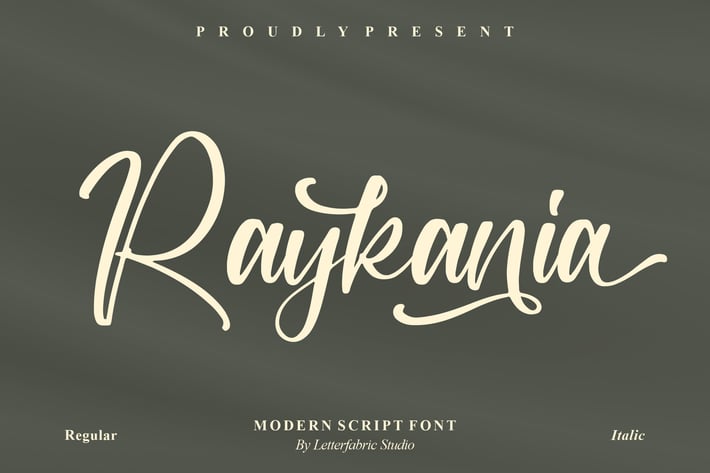
Raykania Modern Script Font
Raykania is a confident modern script that balances lively hand-written energy with poised, elegant curves. Each letter glides into the next for natural word shapes, while optional swashes and stylistic alternates let you dial the drama up or down. Clean nodes and careful kerning keep it crisp on print projects and pixel-perfect on screen, making Raykania a versatile choice for everything from luxury branding to heartfelt invitations and social posts.
+ Modern handwritten script with Regular & Italic styles
+ Full A–Z uppercase & lowercase
+ Natural ligatures & stylistic alternates
+ Decorative swashes/underlines
+ Numerals, punctuation, symbols
+ Multilingual support
+ Refined kerning & smooth curves
+ Clean nodes for crisp print at any size
Perfect for:
+ Logos & wordmarks
+ Brand identities
+ Wedding suites
+ Invitations & RSVP
+ Social graphics
+ Packaging & labels
+ Business cards
+ Quote posts
+ Posters & flyers
+ Watermarks & signatures
+ Fashion & beauty promos
+ Editorial headers
Confident script with elegant, flowing swashes.